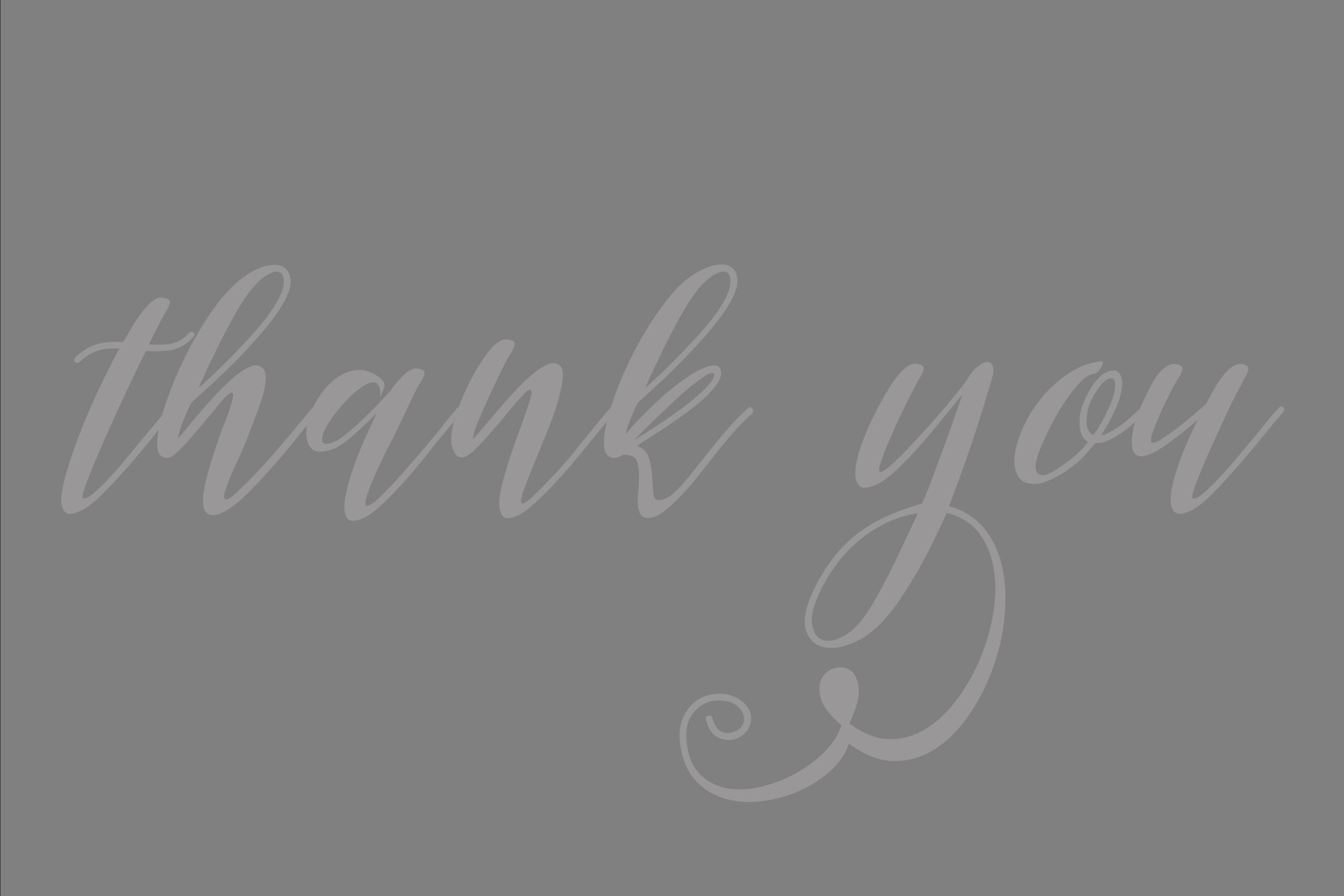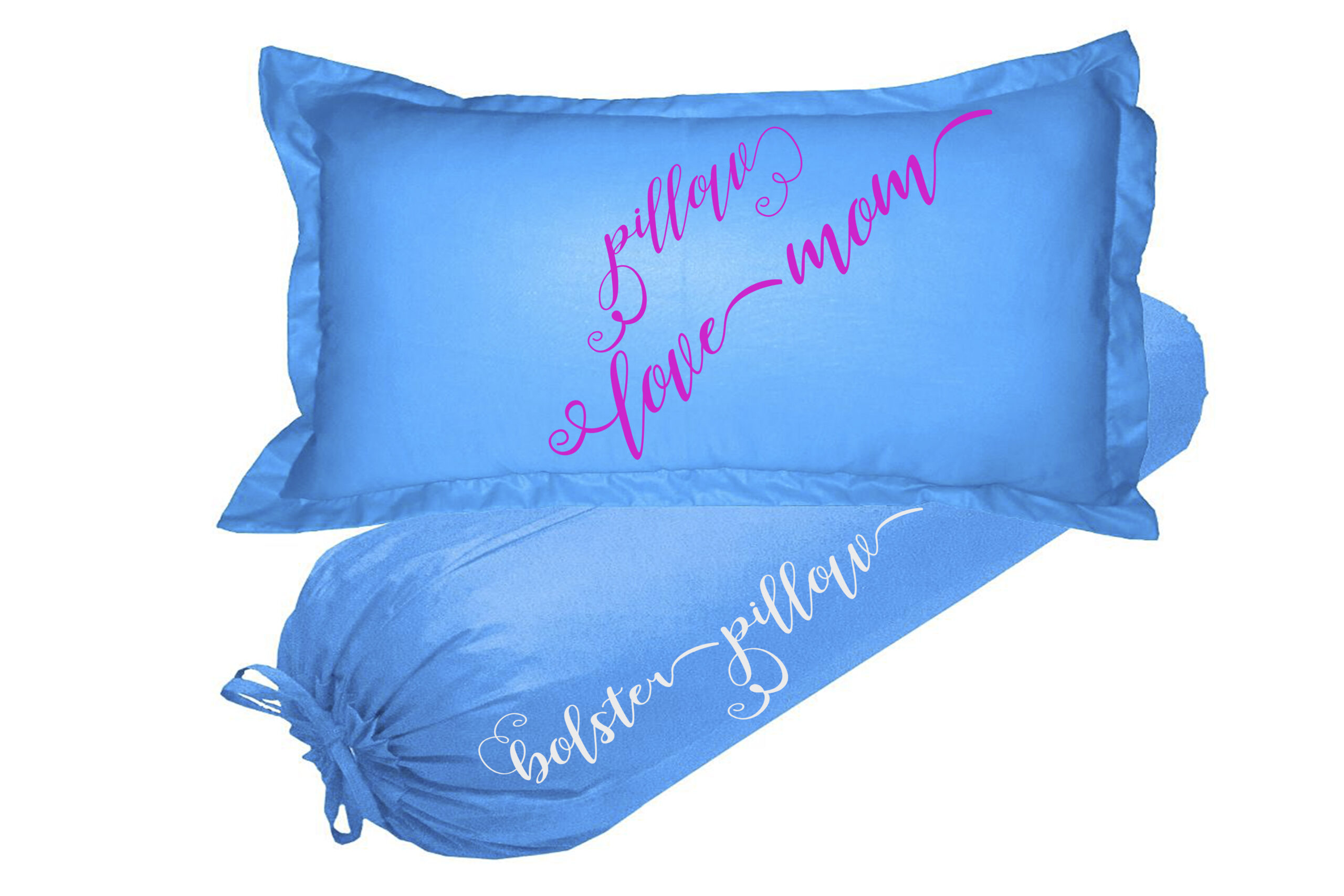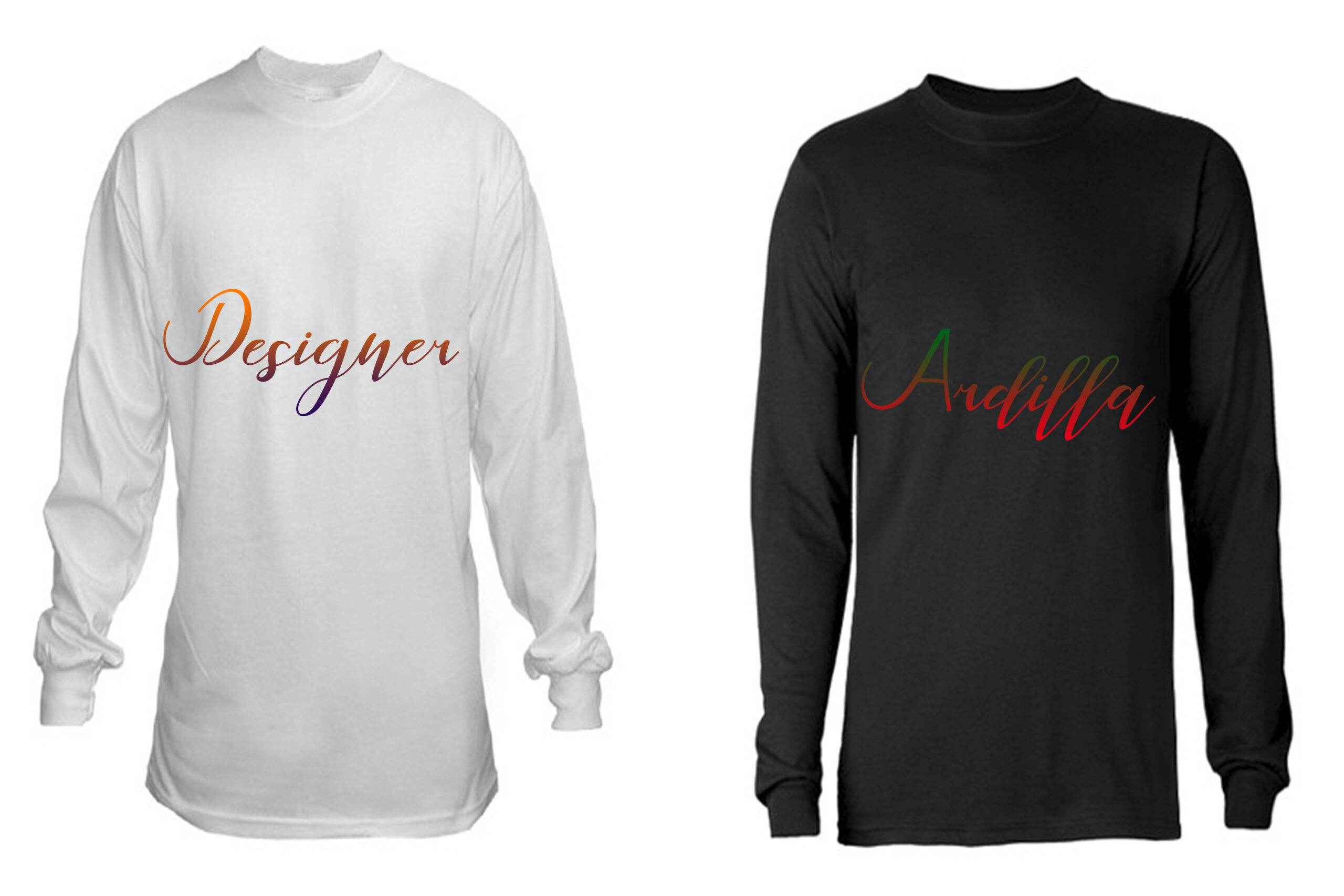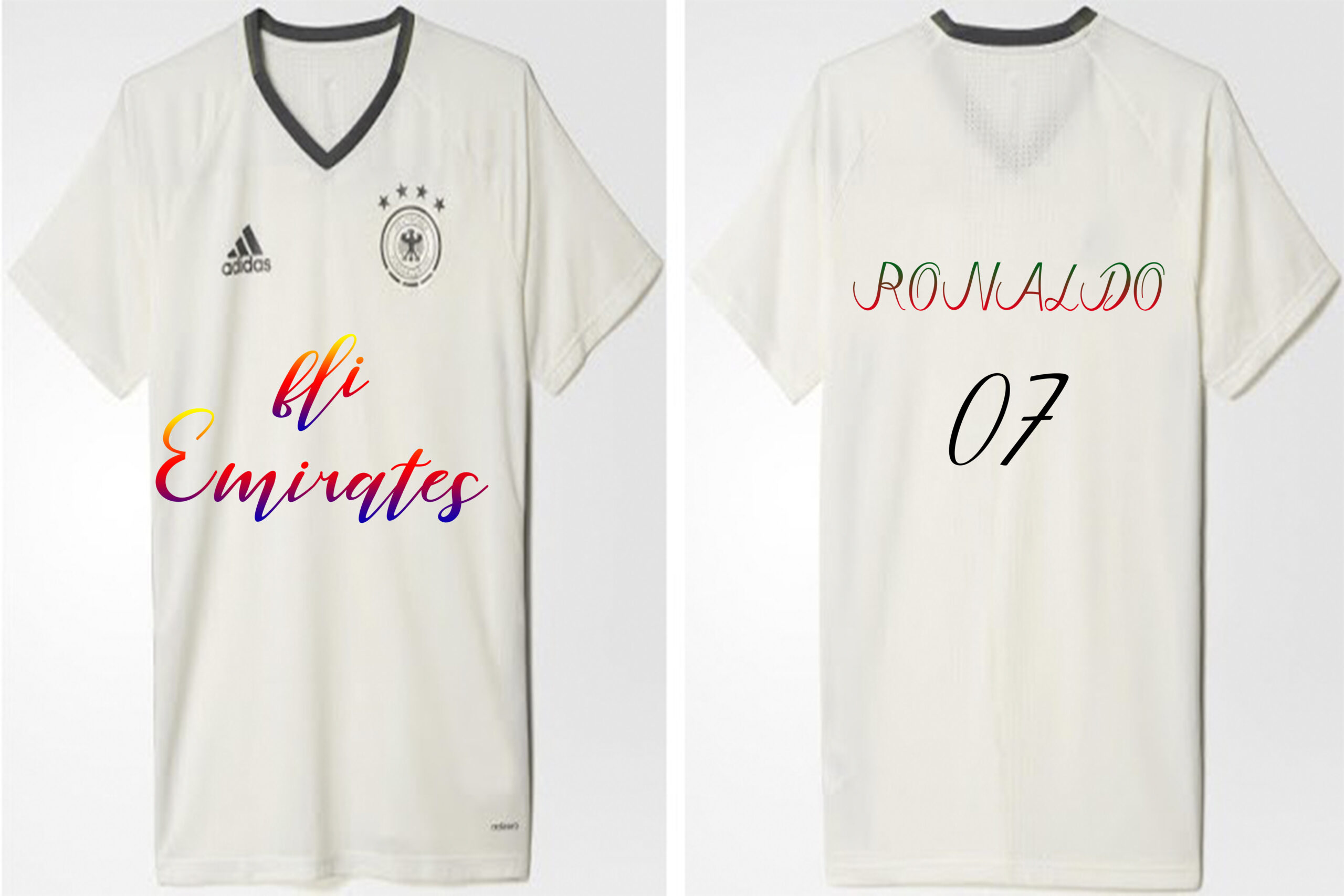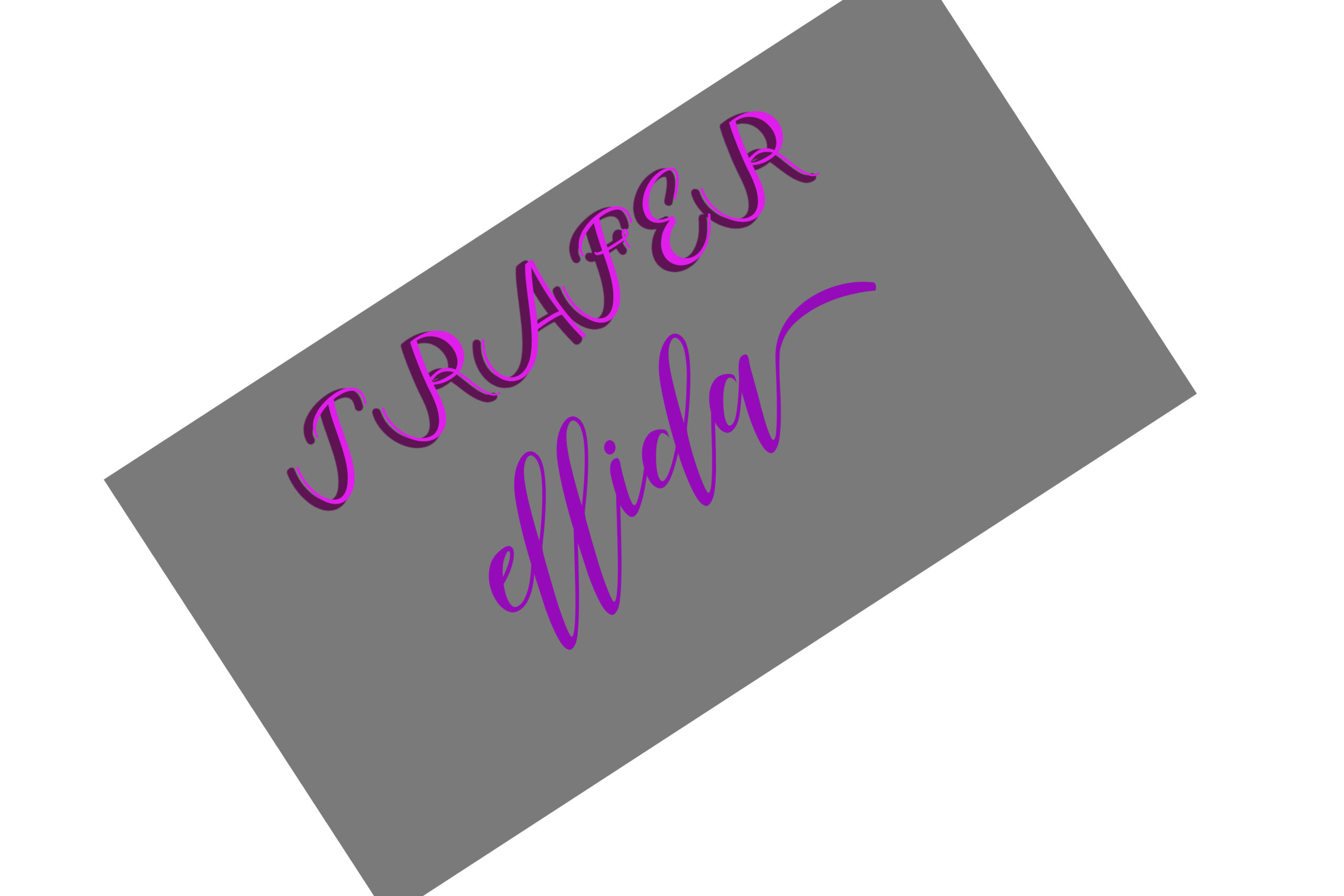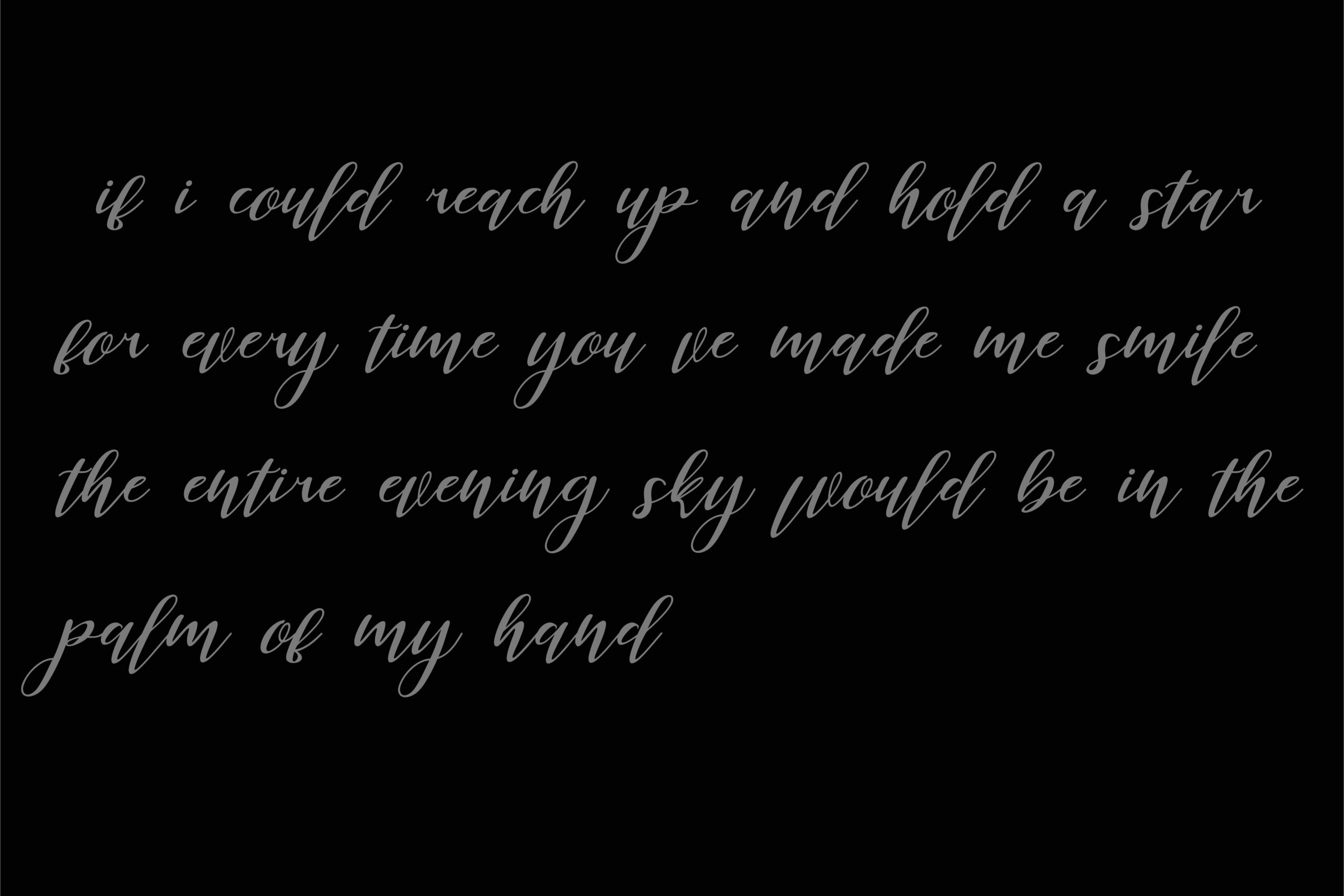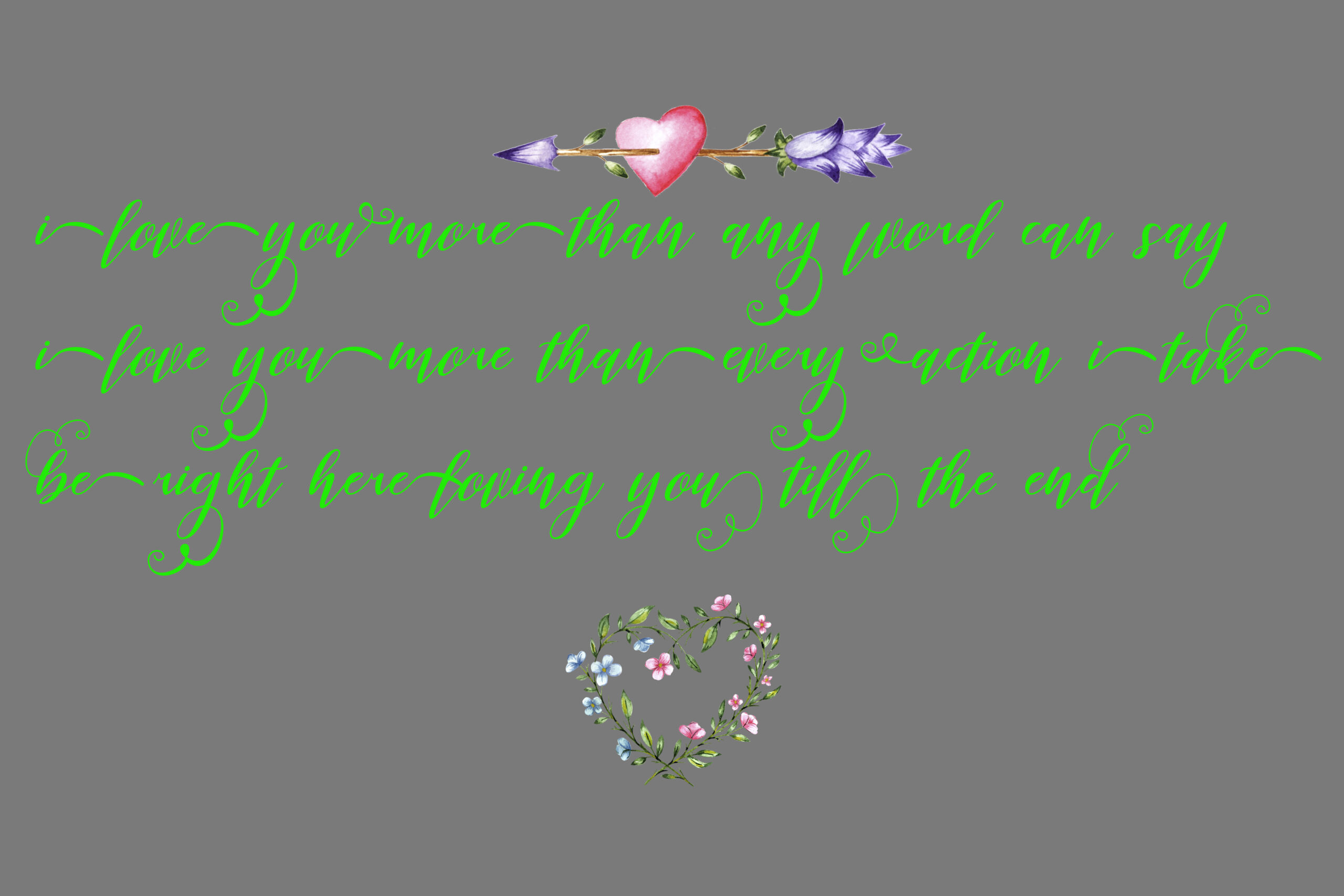
Delfia Font
About Delfia Font
Delfia is a modern calligraphy font, beautifully constructed and attention-grabbing. This font is perfect for display purposes and can add some elegance to your designs.